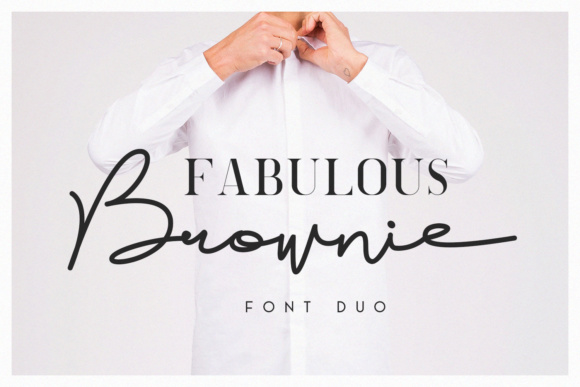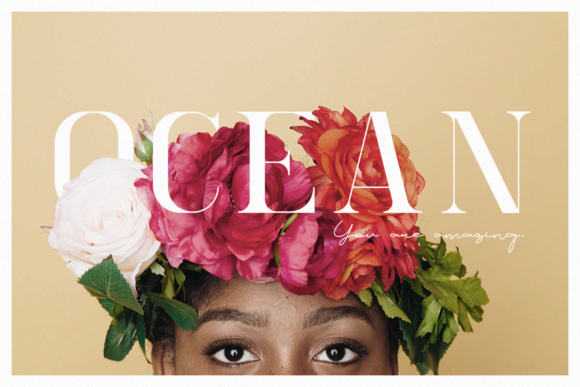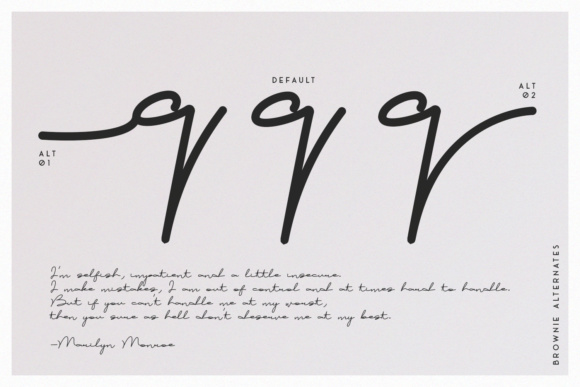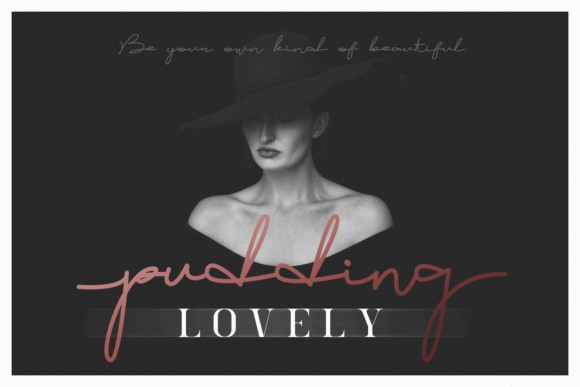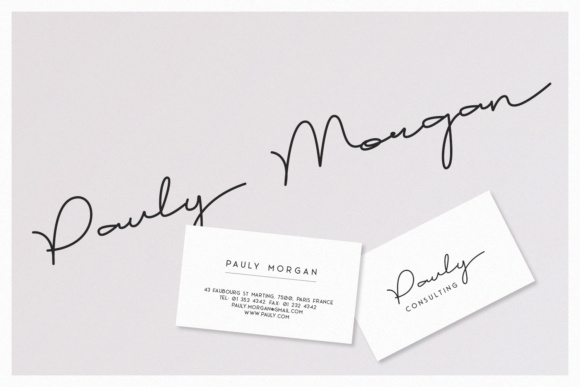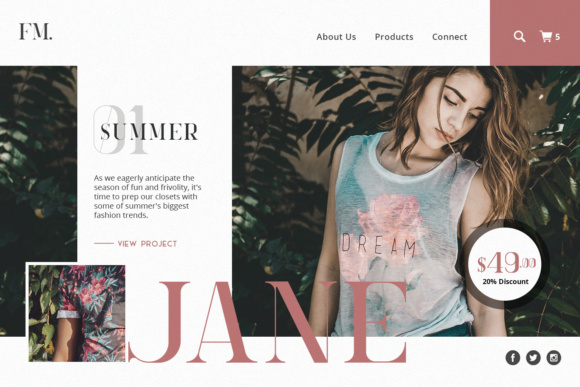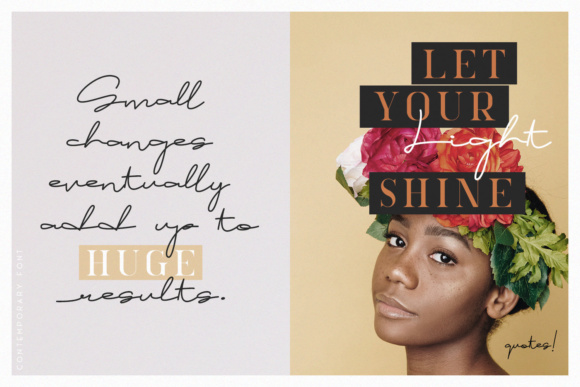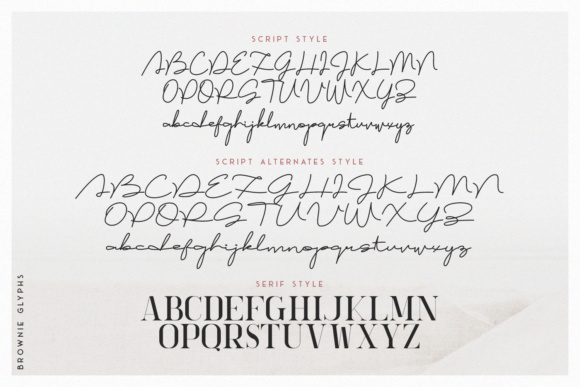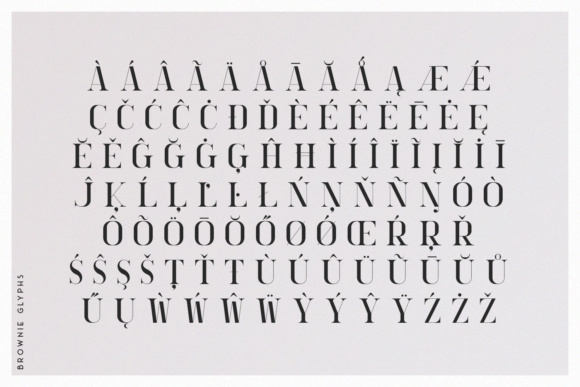
Brownie Duo Font
About Brownie Duo Font
The Brownie Duo is a classy, contemporary pair of script and serif fonts. It offers you a beautiful typographic harmony for a diversity of design projects.